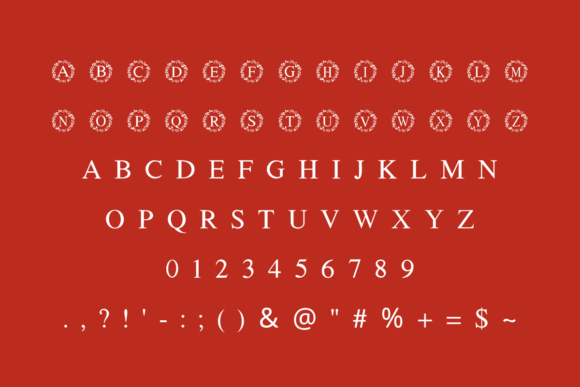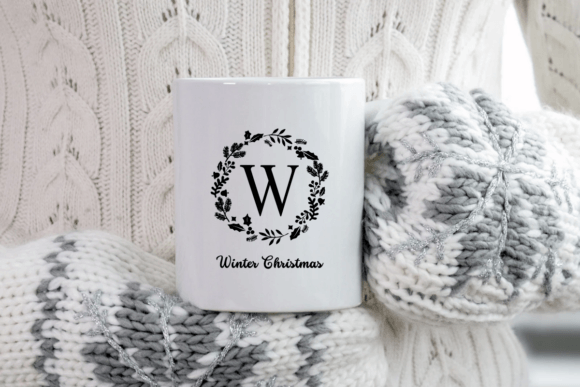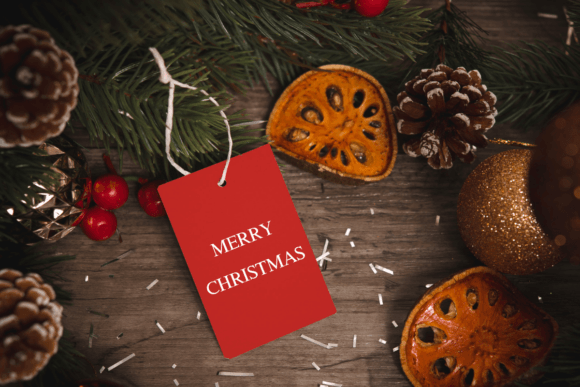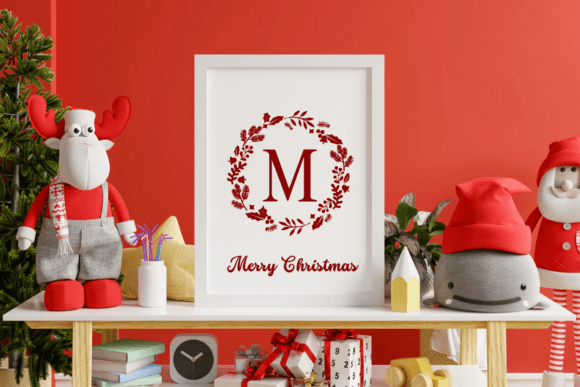
The Magic of Christmas Monogram Font: A Designer’s Delight
I still remember the year I was tasked with creating a Christmas-themed branding campaign for a popular retail client. As I was brainstorming ideas, I realized that I needed a font that would capture the festive spirit and make the brand stand out. That’s when I stumbled upon the Christmas Monogram Font, and it instantly became my go-to choice. In this article, I’ll share my experience with this beautiful font, its features, and how to make the most of it in your designs.
What Makes Christmas Monogram Font Special?
Christmas Monogram is a decorative font that features letters surrounded by festive Christmas frames. Each letter has a holiday-themed border, like wreaths or ornaments, making it perfect for adding a special Christmas touch to your designs! ✨
• Unique and festive designs for every letter
• Perfect for Christmas-themed projects, such as holiday cards, posters, and social media graphics
• Scalable and versatile for various design applications
Here’s my honest review of the Christmas Monogram Font:
• ✨ The font’s festive and playful vibe is perfect for Christmas-themed projects
• ✅ The designs are intricate and detailed, making them suitable for high-resolution prints
• 🎉 The font comes with a range of letters and symbols, making it versatile for different design applications
• 🤔 Some letters may require manual kerning for optimal spacing
• ⚠️ The font’s intricate designs may not be suitable for small text sizes or low-resolution screens
The Designer Inspiration Behind Christmas Monogram Font
Christmas Monogram Font was designed by a team of creative designers who wanted to capture the magic of the holiday season in a font. Inspired by traditional Christmas decorations and festive designs, they created a font that would add a touch of holiday cheer to any design project.
Q: What is Christmas Monogram Font?
A: Christmas Monogram Font is a decorative font featuring letters surrounded by festive Christmas frames.